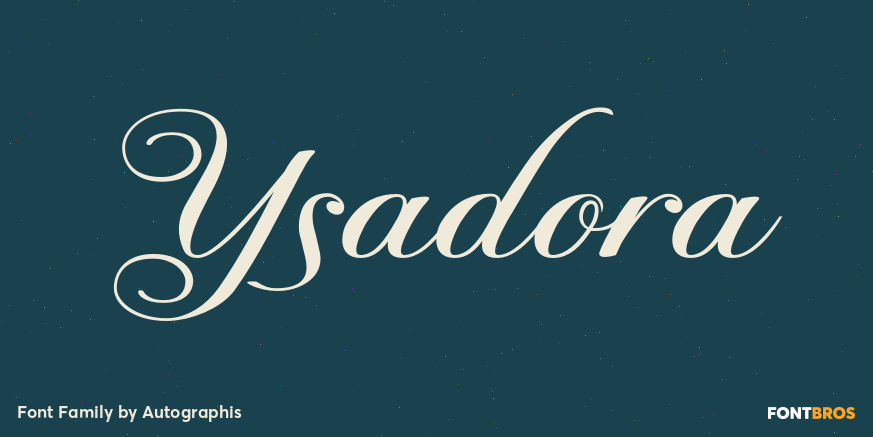
HomeFont BrosScripts: CasualYsadora Scripts: CasualScripts: Formal Ysadora FacebookXPinterestWhatsApp 1 of 1 About Ysadora is a very elaborate script with high contrast and big swings.  DOWNLOAD ON FONT BROSThis font is sold and delivered by Font Bros. Font Canyon may earn a commission if you buy through this link. People also explored Nole Love Font Brithany Font Crafters Font Yellow Fresh Font Carried Away Star Love Font Signature Darelina Font Le Havre Grasp Font 324 0 TagsYsadoraYsadora Font Previous articleTraiectumNext articleBasel Neue LEAVE A REPLY Cancel reply Comment: Please enter your comment! Name:* Please enter your name here Email:* You have entered an incorrect email address! Please enter your email address here Website: Save my name, email, and website in this browser for the next time I comment. Personal Use Free Bonifaciy Personal Use Free Read more about this font Bahjera Personal Use Free Read more about this font Cuttie Personal Use Free Read more about this font Mullia Personal Use Free Read more about this font BLOG Free Fonts Risk: Why Free Fonts Can Be Dangerous for Designers Free Fonts Risk: Why Free Fonts Can Be Dangerous for Designers Using free fonts is a common practice in web and graphic design. However, the... How to Cut Any Font on Cricut: Convert a Font to SVG (Free) Where to Buy American Fonts Online in 2024 5 Fonts That Will Dominate Design Trends in 2026